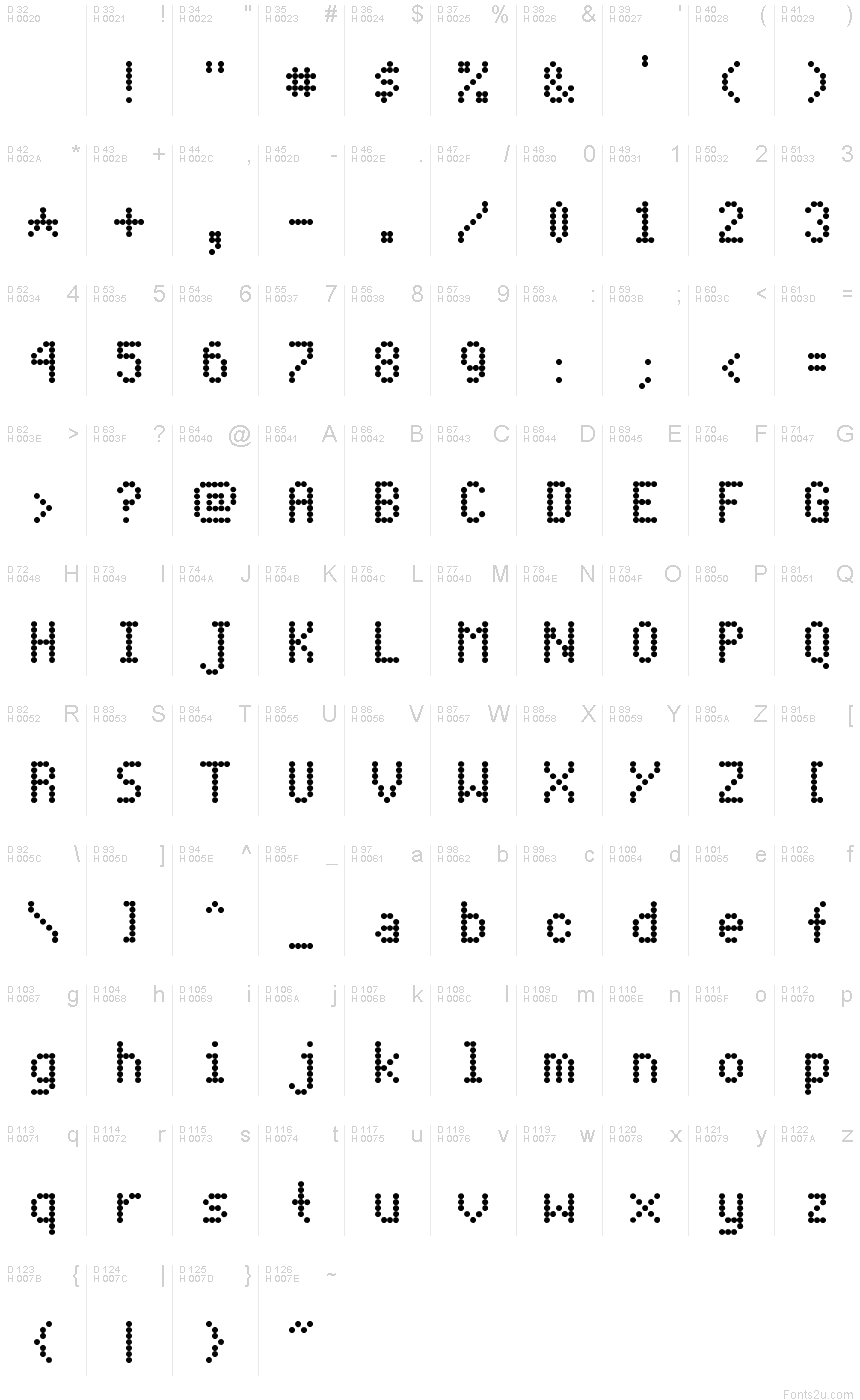
Dot Matrix
Dot Matrix font is a free digital display typeface that captures the crunchy charm of old ticket printers and LED message boards. Each letter is built from neat, evenly spaced dots, giving text a tactile, pixelated shimmer that feels both technical and nostalgic. The spacing is open and legible, so words read clearly even when the texture gets dense at larger sizes.
This free font shines on tech event posters, retro game titles, sci‑fi book covers, dashboards, signage, and bold social graphics. Using Dot Matrix instantly signals “digital” without looking cold or generic, thanks to its playful circular grid. Try pairing it with a clean geometric sans for body text and keep Dot Matrix for headlines set large, where its dotted structure can really light up.